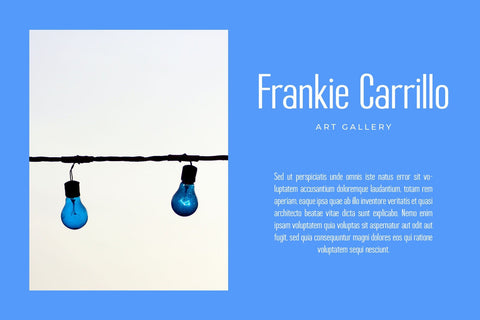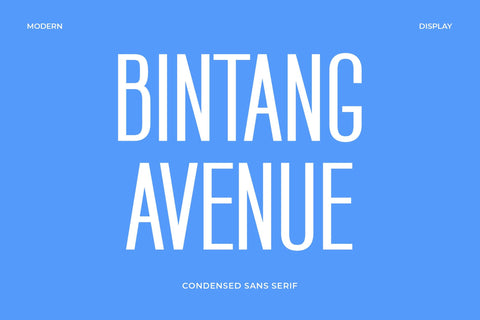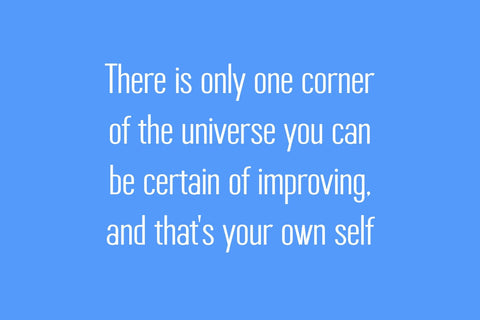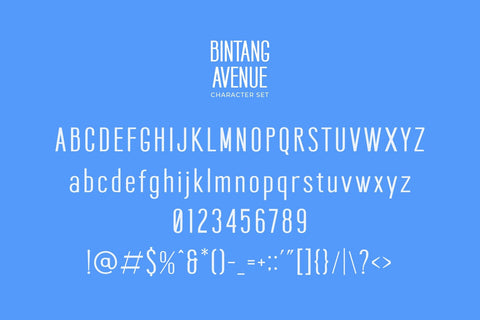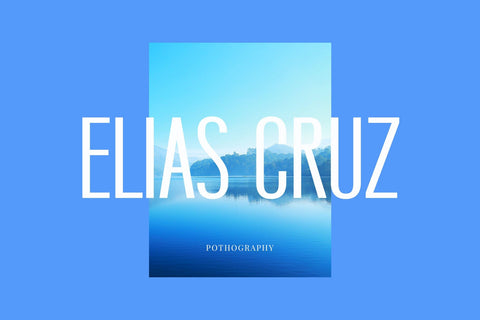
Bintang Avenue - Modern Sans Serif Font
Introducing our new Bintang Avenue, modern sans serif font with elegant style this is perfect for branding, logos, invitation, magazines, product packaging and more.